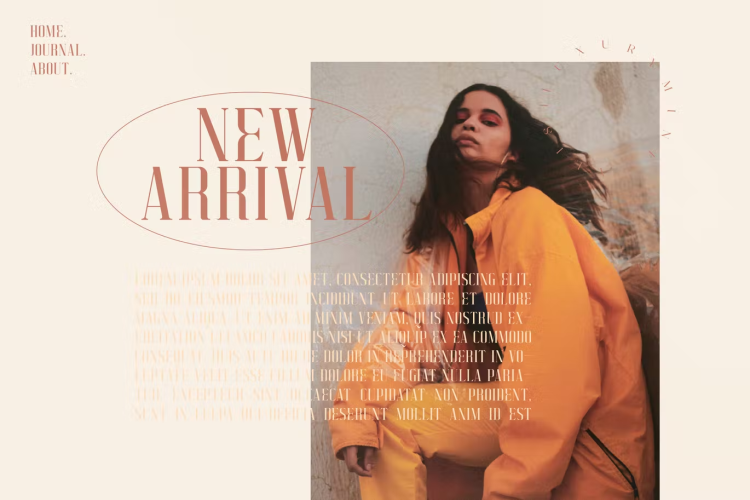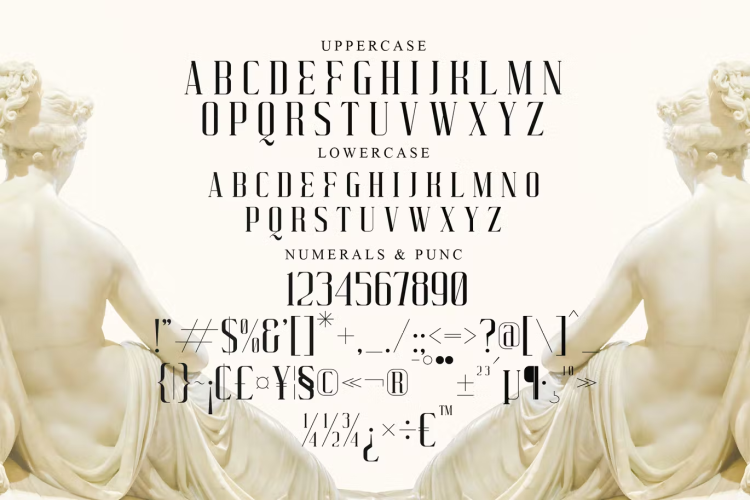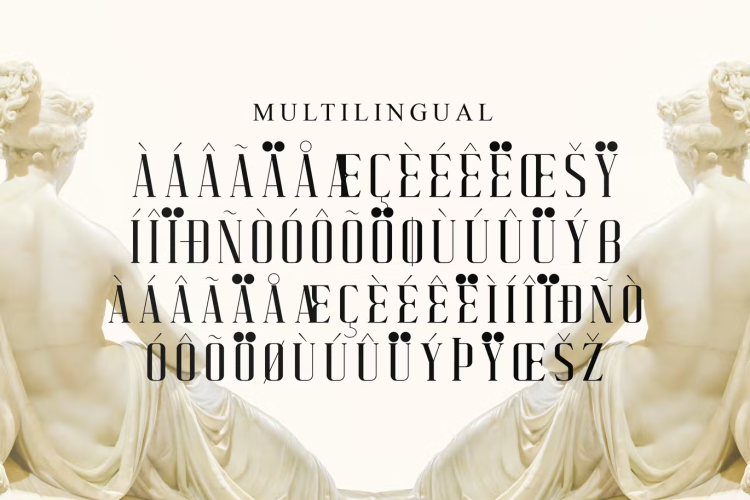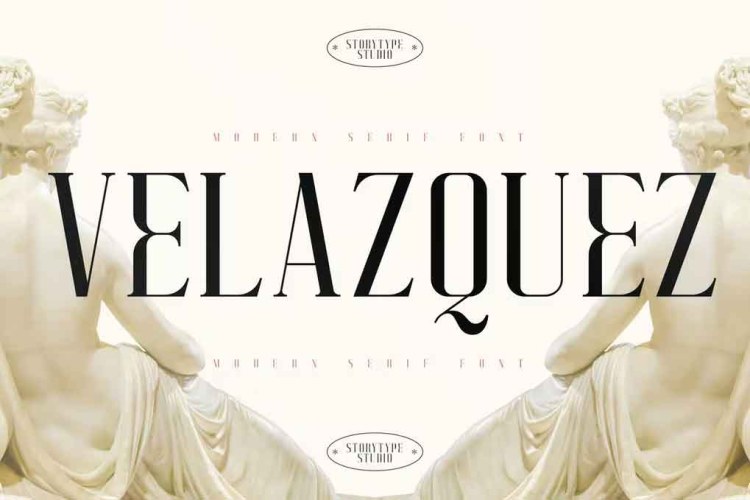
Velazquez Modern Serif Font
Hi ladies & gentlemen, this is one of our fonts suitable to complement your digital and printed creative products. This font is perfect for posters, social media posts, branding, personal projects, etc.
Where Velazquez Modern Serif Font works best
Reports, white papers and book interiors hold the eye longer when the text face has real serifs; Velazquez Modern Serif Font keeps that rhythm without looking old-fashioned.
Food, spirits and cosmetics brands lean on serif wordmarks to suggest age and care. Velazquez Modern Serif Font gives that signal at wordmark size.
Set Velazquez Modern Serif Font for the body of an award or a diploma and keep the recipient name in a script; the pairing is what makes a document feel official.
What kind of work does Velazquez Modern Serif Font suit?
It sits in the Serif Fonts group and reads as branding, creative, modern, serif. That makes it a candidate wherever those qualities help: headings, packaging, social graphics and brand work. Set it at the size you plan to use before deciding.